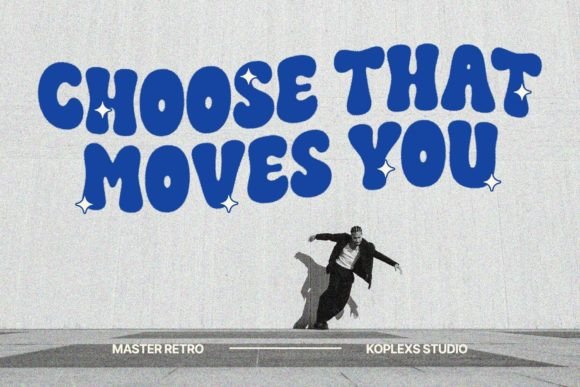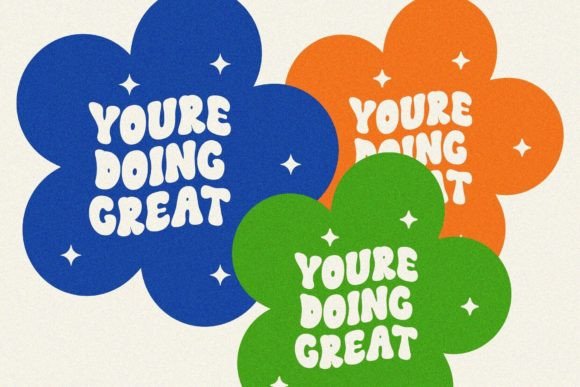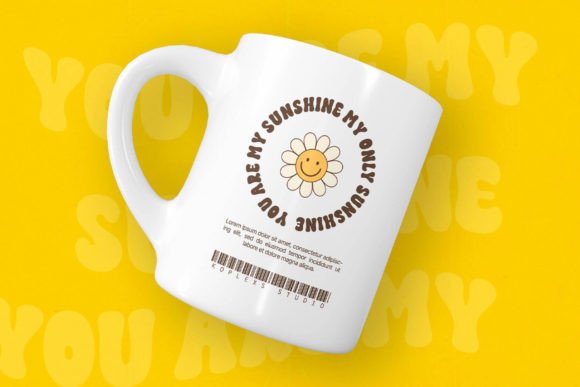
Introduction to Master Retro Font
Do you remember the thrill of rummaging through your grandfather’s old vinyl collection, feeling the excitement of discovering a rare gem? The same sense of nostalgia and adventure can be found in the world of typography, where fonts like the Master Retro Font transport you back to a bygone era of disco parties and funky vibes.
As a designer, you’re constantly on the lookout for unique design resources that can elevate your creative project and give it that extra oomph. The Master Retro Font is a high-quality, free download that’s perfect for adding a touch of retro flair to your design. With its transparent background and bold, playful letterforms, this font is a valuable addition to any designer’s toolkit, allowing you to create eye-catching and memorable designs with ease.
Key Features of Master Retro Font
- High-quality, bold font design with a classic, retro aesthetic, perfect for creative projects.
- Size: 4 styles, each with 6 weights, providing a wide range of options for designers to choose from.
- Master Retro Font is a versatile design resource, ideal for use in a variety of creative projects, including logos, posters, and advertisements.
Honest Review: Master Retro Font
As a designer, I’m always on the lookout for high-quality design resources to enhance my creative projects. Recently, I stumbled upon the Master Retro Font, and I must say it’s been a game-changer. ✨
What I love about this font is its versatility. It’s perfect for creating a nostalgic and retro vibe, making it ideal for projects that require a touch of vintage charm. The transparent background option allows for seamless integration with other design elements, giving you more creative freedom.
- High-quality design with detailed textures and effects
- Transparent background option for flexibility
- Perfect for retro-themed projects, music labels, and vintage-inspired designs
However, I do have a few limitations to mention ⚠️. The font might not be the best choice for modern and minimalist designs, as its bold and playful style may clash with clean lines and simple typography.
Master Retro Font
The Master Retro Font is a unique design resource that can elevate any creative project. This high-quality font is perfect for those who want to add a touch of nostalgia and sophistication to their designs.
Designing with Master Retro Font
To get the most out of Master Retro Font, try using it with a transparent background to create a sense of depth and dimension. You can also experiment with different font sizes and styles to create a unique visual effect.
Master Retro Font is perfect for designers who want to create a retro or vintage look for their projects. It’s ideal for use in advertising, packaging, and branding designs, as well as in digital products like websites and social media graphics.